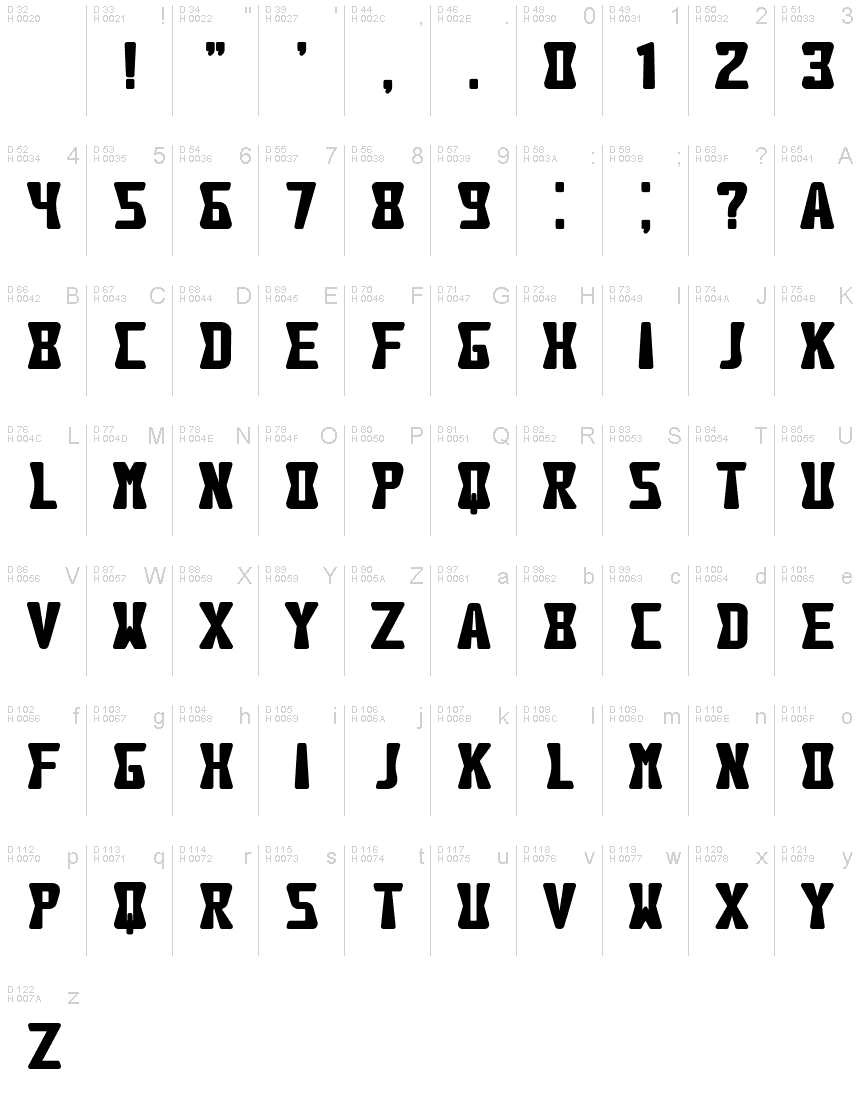
Harves Bold
Harves Bold is a bold techno font designed by Vladimir Nikolic. It's part of the Harves font family and is perfect for modern projects needing a strong, futuristic touch. Use it to give your branding, logos, posters and flyers an edge.